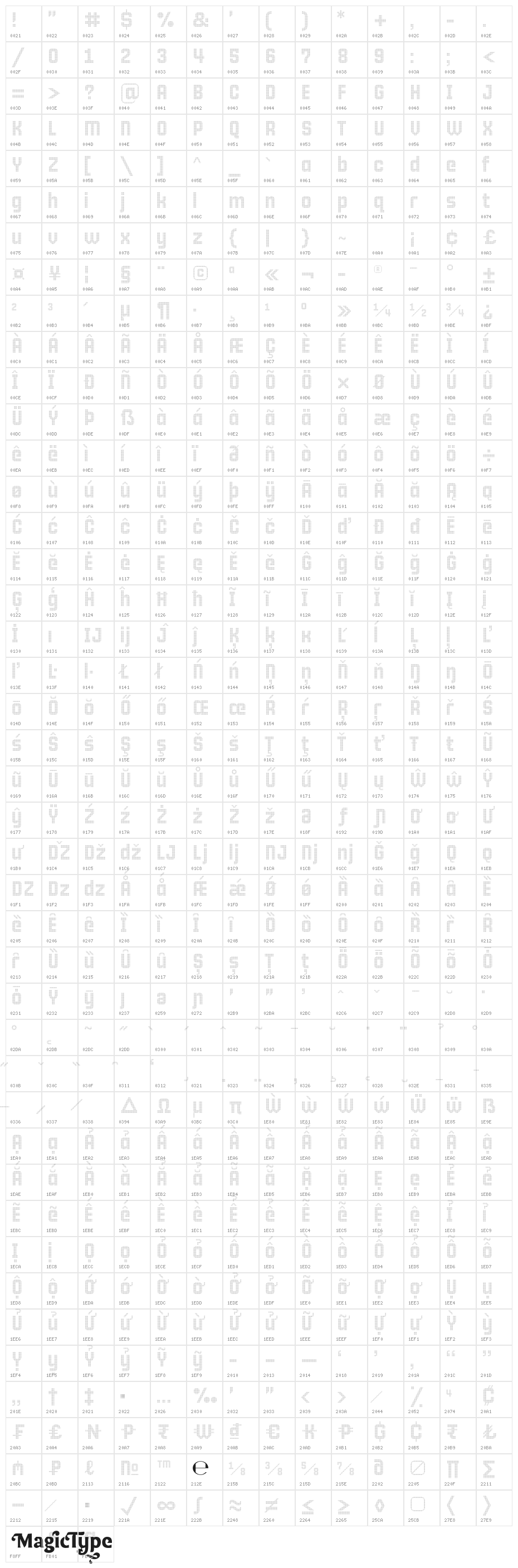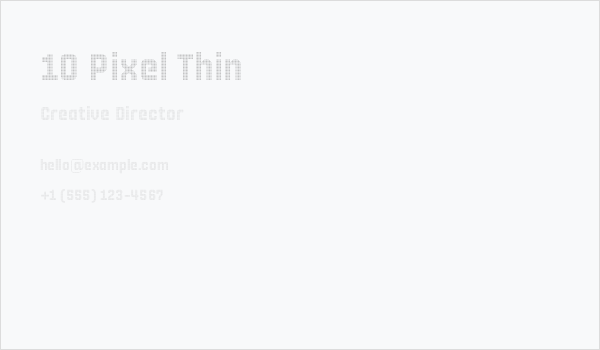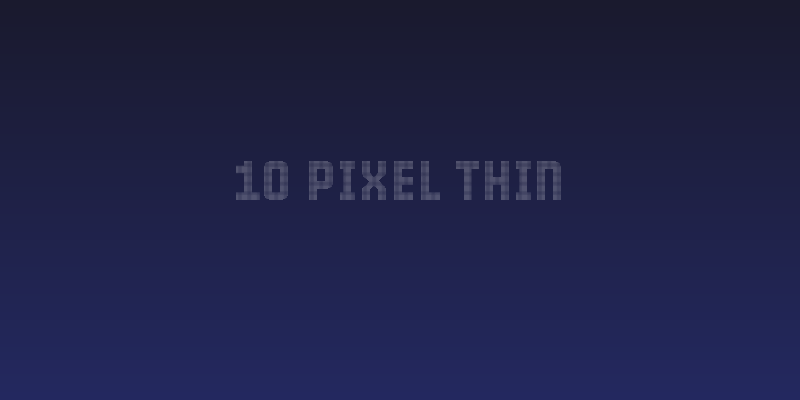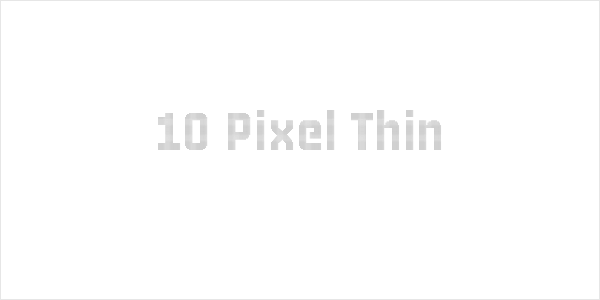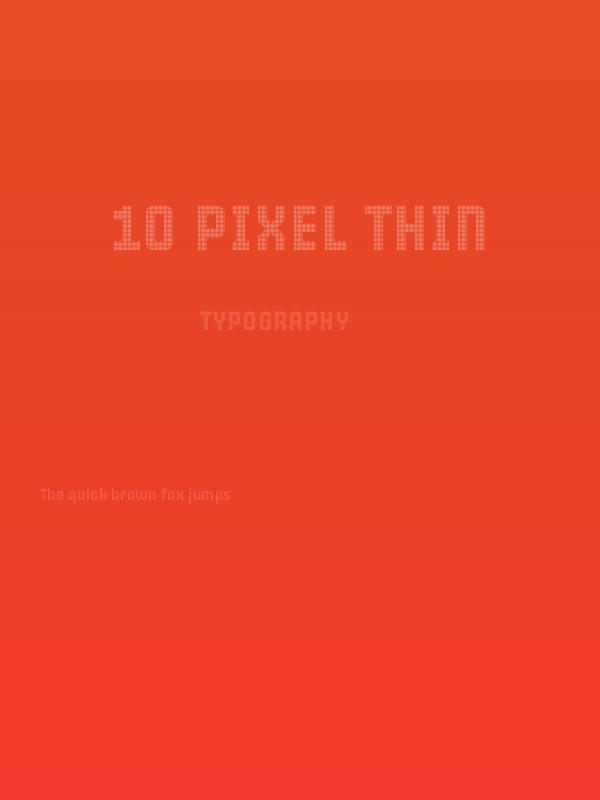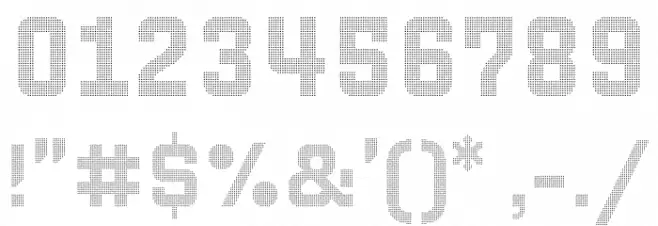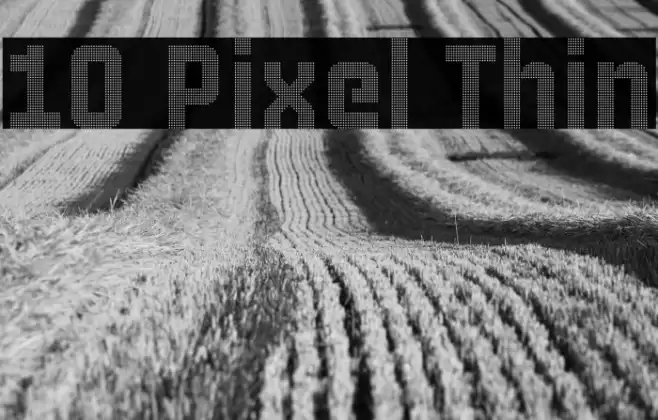
10 Pixel Thin Font
10 Pixel Thin Description
This font features a pixelated design that gives it a distinct digital and retro appearance. Each character is constructed using a grid of small squares, creating a blocky and geometric look. The uppercase and lowercase letters maintain a consistent height, contributing to a uniform and orderly presentation. Numbers and special characters follow the same pixelated style, ensuring a cohesive visual theme across all elements. The font's design is reminiscent of early computer graphics, making it ideal for projects that aim to evoke nostalgia or a tech-oriented aesthetic.
| Overall Style | Retro, Digital |
| Use Case | Logos, Posters, Digital Art |
| Proposed Projects | Ideal for video game graphics, tech-themed posters, digital art projects, and retro-style branding. |